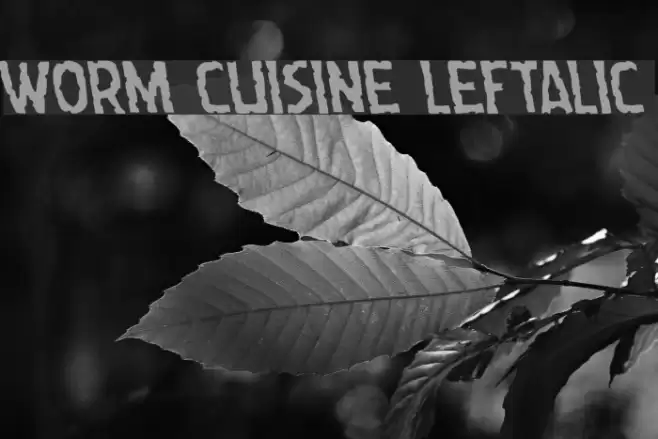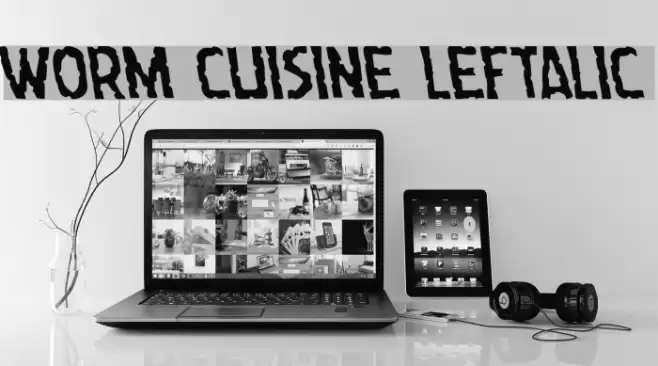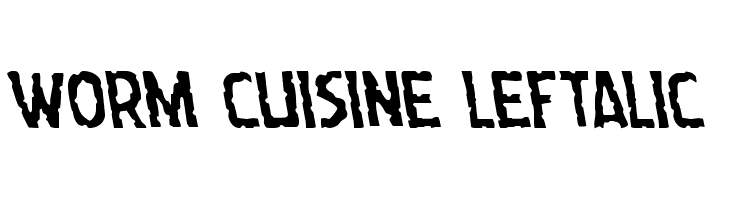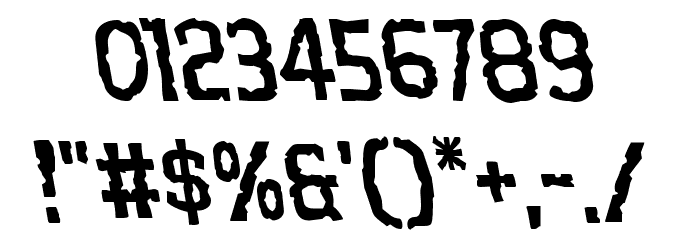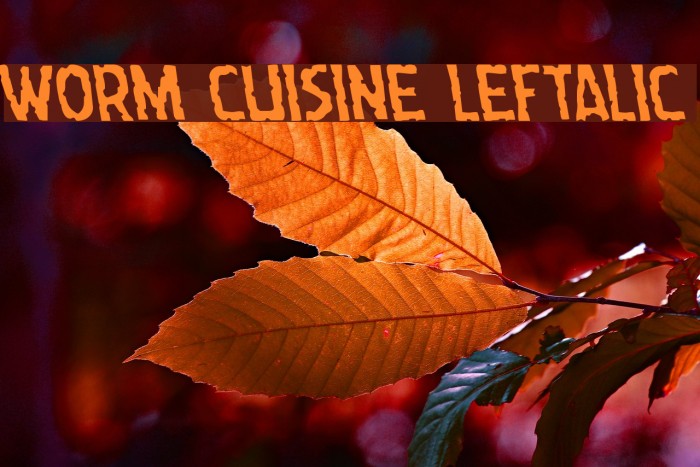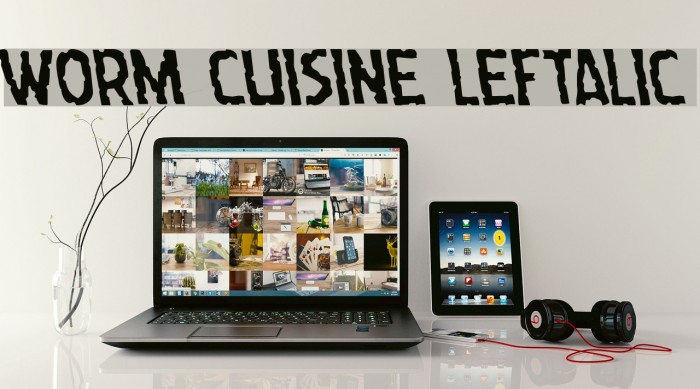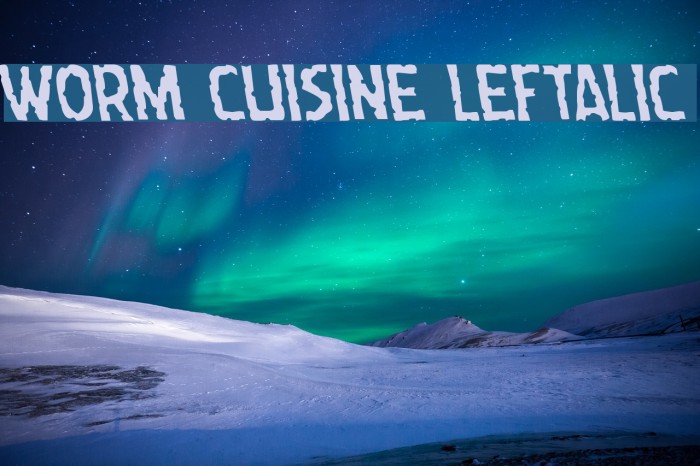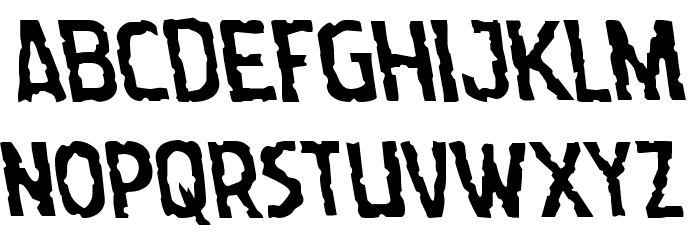
Worm Cuisine Leftalic Font
Worm Cuisine Leftalic Description
This font features a unique, rugged style with irregular edges, giving it a hand-carved appearance. The letters are bold and slightly tilted, adding a dynamic and energetic feel. The uppercase and lowercase characters maintain a consistent design, with the uppercase being more pronounced. Numbers and special characters follow the same aesthetic, ensuring uniformity across all glyphs. The font's distinct look makes it suitable for creative and unconventional projects, where a bold statement is desired.
A bold, rugged font with irregular edges and a dynamic tilt from Uncategorized fonts.
- Proposed Projects: Ideal for posters, album covers, video game titles, and edgy branding.